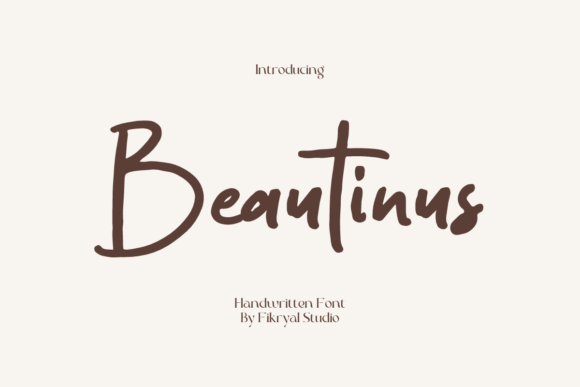
Introducing Beautinus Font: Elevate Your Designs with Elegance and Femininity
In the world of graphic design, typography plays a crucial role in conveying the tone and aesthetic of a project. For designers and crafters seeking to add a touch of elegance and femininity to their work, Beautinus Handwritten Script Font is an exceptional choice. This beautiful and exclusive typeface is specifically designed to infuse a romantic and artistic atmosphere into various design projects, making it perfect for those who aim to create visually stunning and emotive content.
The Beauty of Beautinus Handwritten Script Font
Beautinus Handwritten Script Font boasts a soft and classy handwritten appearance, characterized by smooth-flowing characters that exude a sense of gentleness and warmth. Its unique and elegant design makes it an ideal choice for a wide range of applications, including logos, branding, greeting cards, wedding invitations, digital products, and more. Whether you’re a designer looking to create a cohesive brand identity or a crafter seeking to add a personal touch to your projects, Beautinus Handwritten Script Font is sure to impress.
What Makes Beautinus Stand Out?
So, what sets Beautinus Handwritten Script Font apart from other typefaces? Here are a few key features that make it a standout choice:
- Unique and Elegant Design: Beautinus features a distinctive and refined design that adds a touch of sophistication to any project.
- Flexibility: With the ability to adjust letter size and style, this font provides perfect flexibility to customize your designs according to your needs.
- Emotional Connection: Beautinus Handwritten Script Font is designed to convey messages of gentleness, beauty, and warmth, making it perfect for projects that require a personal touch.
Beautinus Handwritten Script Font is a versatile typeface that can be used in a variety of design projects, including:
- Logos and Branding: Create a cohesive brand identity with a unique and elegant logo that reflects your brand’s personality.
- Greeting Cards and Wedding Invitations: Add a touch of romance and sophistication to your stationery designs.
- Digital Products: Enhance your digital products, such as e-books, printables, and planners, with a beautiful and feminine touch.
Enhance Your Creativity with Beautinus
When you use Beautinus Handwritten Script Font, you’ll feel a personal and unique touch in every word and sentence you write. This font is designed to inspire creativity and help you bring your ideas to life. With Beautinus, you can:
- Create Visually Stunning Content: Use Beautinus to create beautiful and eye-catching designs that capture your audience’s attention.
- Convey Emotions and Personality: Add a touch of warmth and personality to your designs, making them more relatable and engaging.
- Stand Out from the Crowd: With its unique and elegant design, Beautinus Handwritten Script Font is sure to set your designs apart from the rest.
In conclusion, Beautinus Handwritten Script Font is an exceptional choice for designers and crafters seeking to add a touch of elegance and femininity to their work. With its unique and elegant design, flexibility, and emotional connection, this font is perfect for various design projects, including logos, branding, greeting cards, wedding invitations, digital products, and more. Enhance your creativity with Beautinus and let every word become a beautiful painting that portrays uniqueness, gentleness, and warmth.
Get Ready to Elevate Your Designs with Beautinus